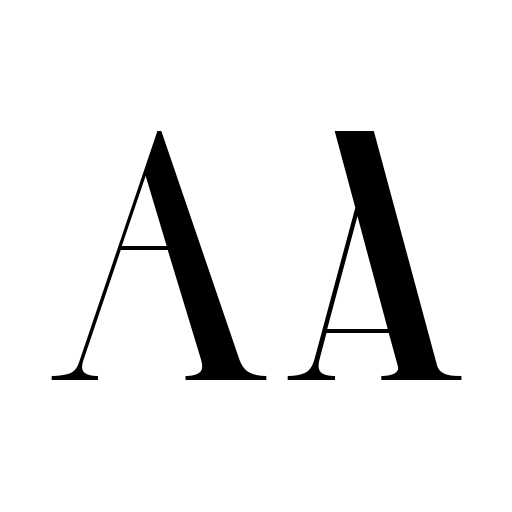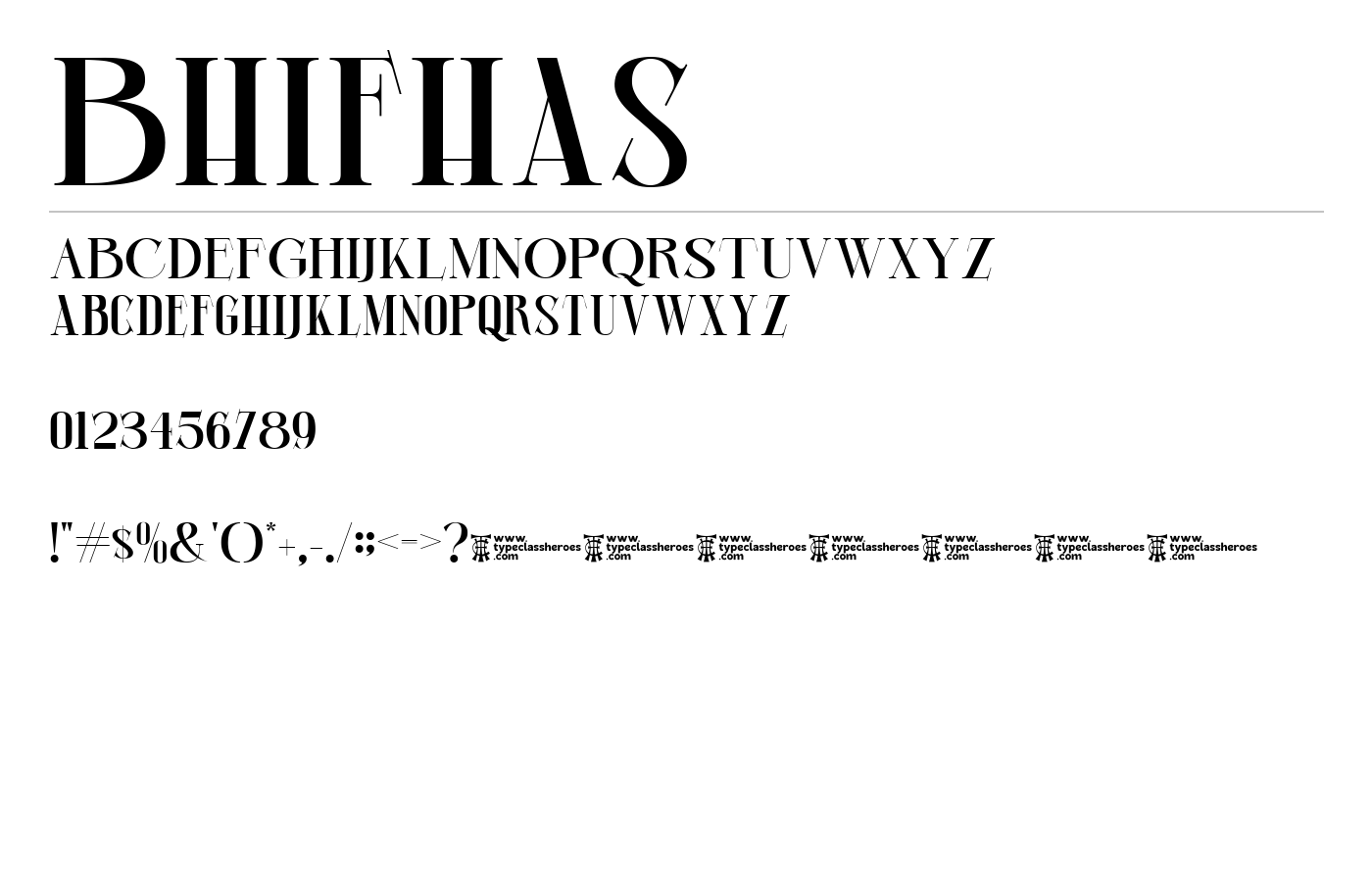
Bhifhas is an elegant serif font with a strong contrast between its thick and thin strokes, featuring high, narrow letterforms that convey sophistication and style. Its sharp, refined serifs and distinctive character shapes make it ideal for upscale branding, editorial headlines, and luxury packaging where a striking, classic impression is desired. This font works beautifully in contexts that require a refined and polished appearance, capturing a timeless yet modern spirit.
Bhifhas Font
About Bhifhas Font